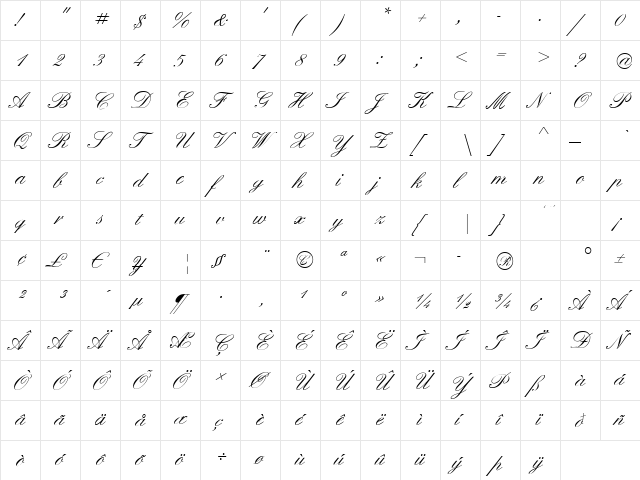
Elegant-Script Regular
Design Context for Elegant-Script Typeface
Elegant-Script brings a calligraphic fluidity to the page — its connecting strokes and expressive curves give it an unmistakably human quality.
Font Pairing: Combine Elegant-Script with a simple geometric sans for maximum contrast — the tension between flowing curves and clean structure is a classic typographic pairing.
Pro Tip: Pair Elegant-Script with a clean sans-serif for supporting text. The contrast between fluid script and geometric structure creates an elegant typographic hierarchy.